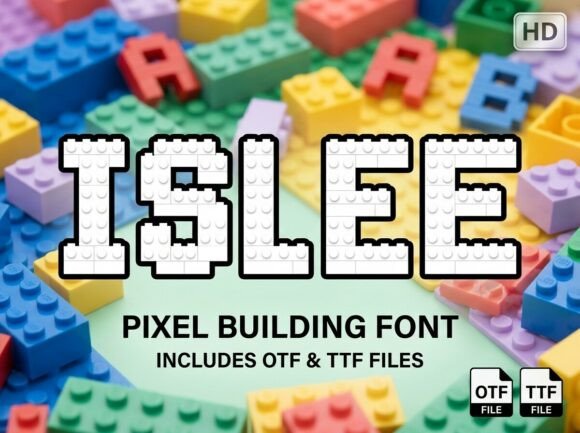
Introduction to Islee Font
As a designer, there’s nothing quite like the thrill of bringing a creative project to life. The moment when all the elements come together, and your vision starts to take shape. It’s a rush of excitement, a sense of accomplishment, and a feeling of pride in your work. And, of course, the right font can make all the difference. That’s where the Islee Font comes in – a stunning decorative display font designed to be the center of attention.
With its unique artistic elements and strong visual personality, the Islee Font is perfect for creators who want to break away from the ordinary. Whether you’re working on a high-quality design project or need a versatile font for bold headlines, artistic logos, or creative packaging, the Islee Font delivers a professional and polished finish. And, with its transparent background, it’s easy to incorporate into any design resource.
Key Features of Islee Font
- High-quality font designed for creative projects, ideal for designers and artists.
- Includes multiple styles and weights to enhance the versatility of the font.
- Designed with a modern and elegant aesthetic, suitable for a wide range of creative projects.
Honest Review: Islee Font
I recently had the chance to work with the Islee Font, and I must say it’s been a game-changer for my creative projects. This high-quality design resource offers a wide range of styles and weights, making it perfect for various design applications.
- ✨ Transparency: The font’s transparent background is a huge plus, allowing for seamless integration with other design elements.
- ✨ Customization: With multiple weights and styles, I was able to customize the font to fit my design needs perfectly.
However, I did encounter a few limitations while working with the Islee Font.
- ⚠️ Limited language support: Unfortunately, the font only supports a limited number of languages, which may be a constraint for designers working on projects that require multiple languages.
Overall, I’m impressed with the Islee Font and its potential for elevating my design projects. While it may have some limitations, its benefits far outweigh its drawbacks, making it a valuable addition to any designer’s toolkit.
Introduction to Islee Font
The Islee Font is a versatile and high-quality design resource ideal for various creative projects. With its transparent background, this font offers flexibility and ease of use in various design applications.
Getting the Most Out of Islee Font
For optimal results, use the Islee Font in conjunction with a high-quality design software. This will allow you to customize the font to suit your creative project’s needs.
Common Use Cases for Islee Font
The Islee Font is ideal for use in various creative projects, including logos, branding, and typography-based designs. Its transparent background and high-quality design make it a valuable resource for designers.